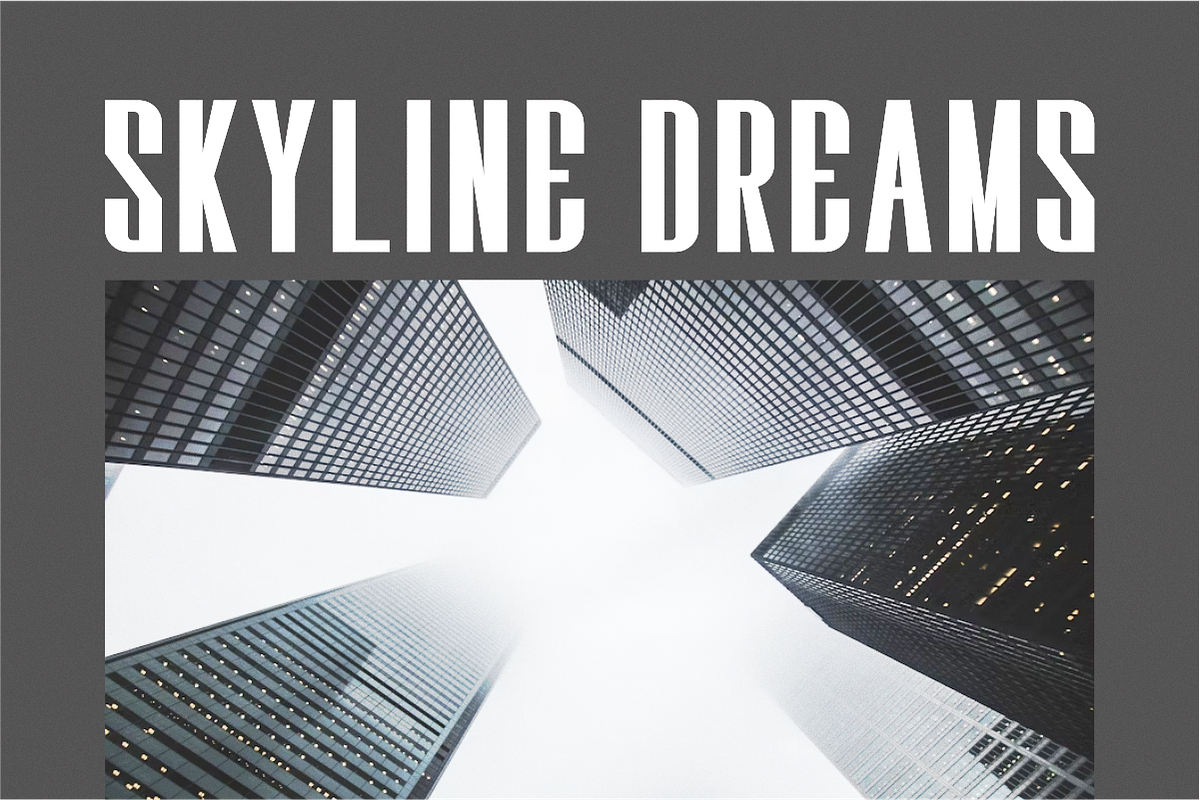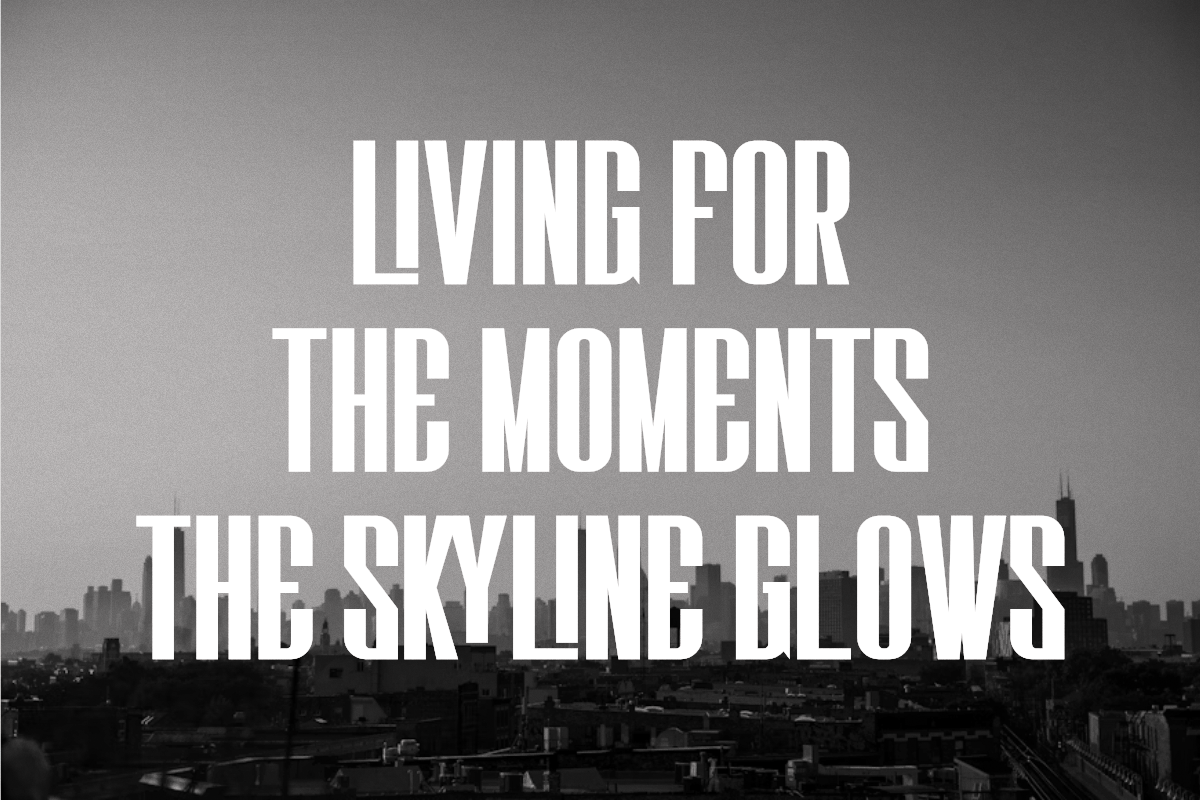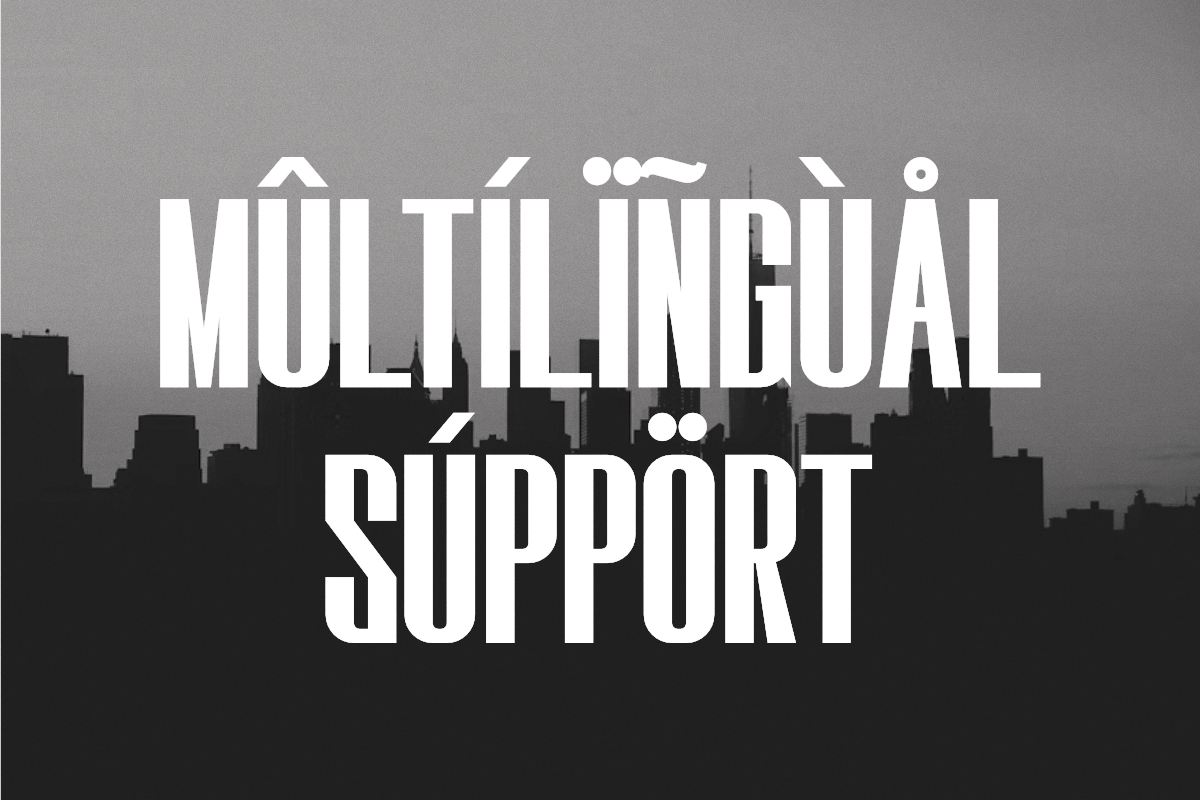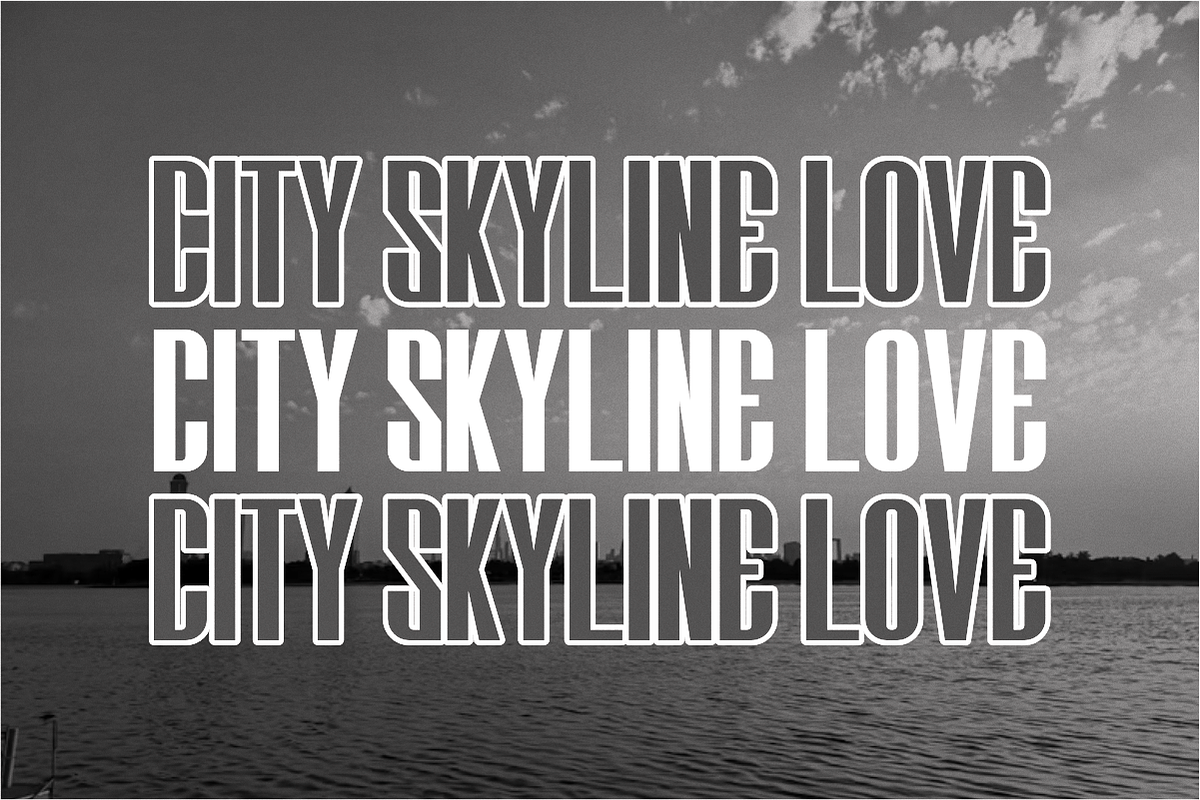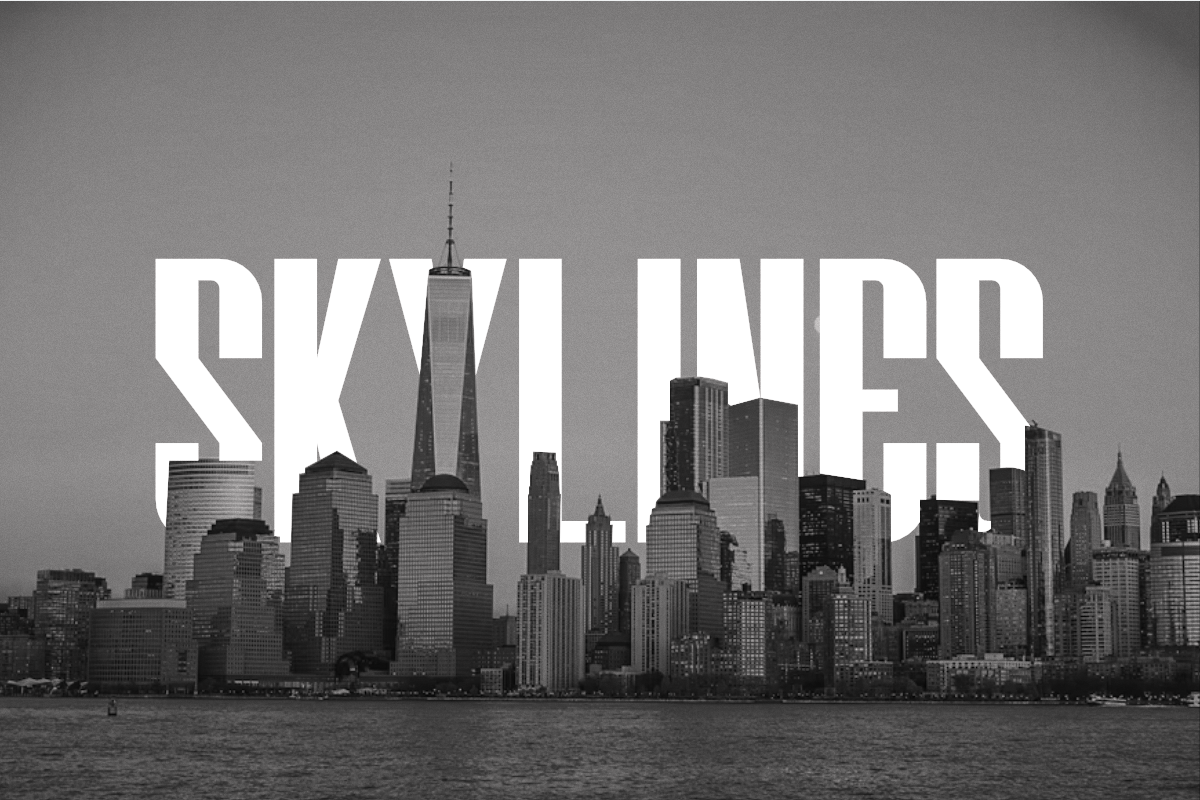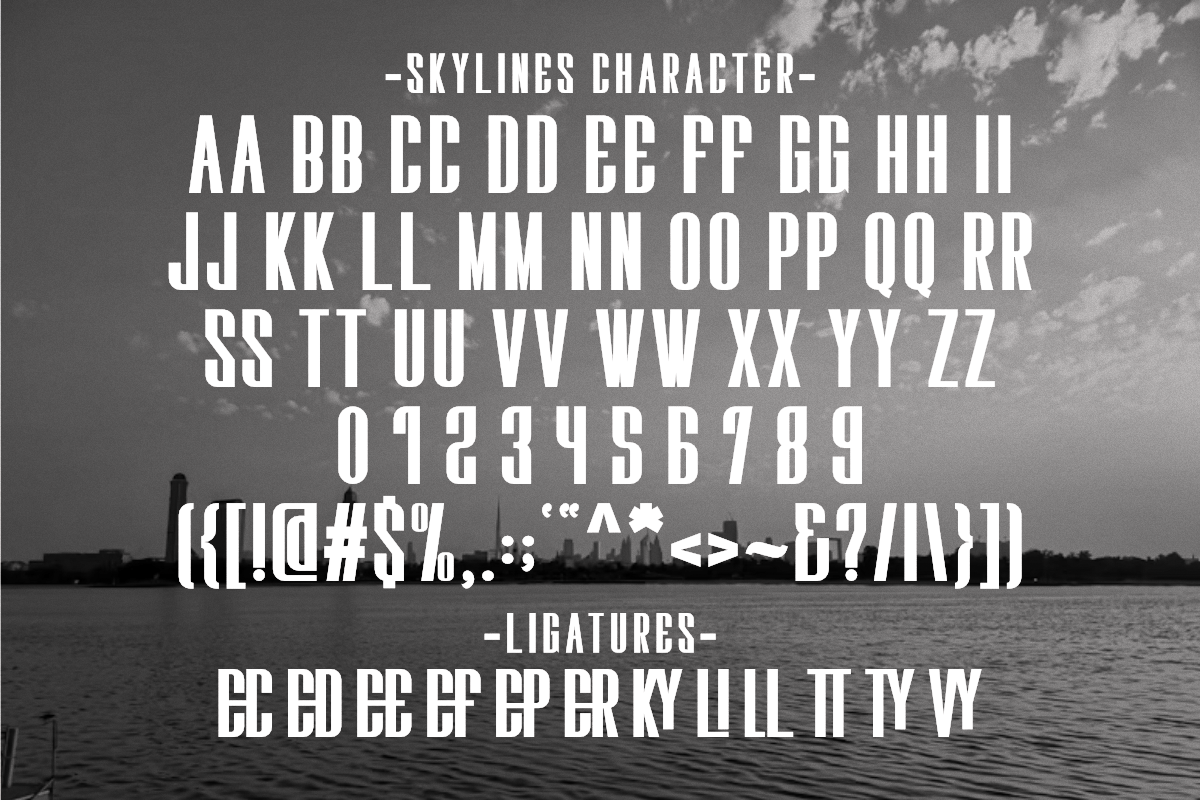
Skylines - Modern Sans Serif
Skylines is a modern and clean condensed sans serif font that embodies urban sophistication and sleek design. Its condensed proportions make it ideal for commanding headlines and titles, allowing for impactful statements in tight spaces. The font features sharp edges and a strong vertical presence, giving it a powerful yet refined look. Perfect for branding, editorial design, posters, and digital interfaces where a contemporary, architectural, or minimalist aesthetic is desired.